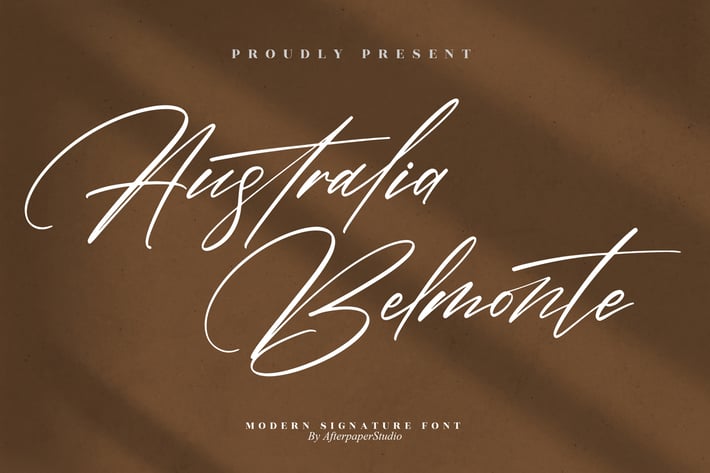
Australia Belmonte Modern Signature Font
Australia Belmonte is a modern signature font with flowing strokes and a refined handwritten elegance. Smooth, confident, and expressive, it captures that premium handwritten feel — like a personal signature crafted with style and intention.
Modern signature style with smooth, fluid strokes
Elegant and expressive handwritten character
Natural flow with balanced curves
Stylish ligatures for a more personal touch
Clean yet artistic appearance
Graceful, personal, and effortlessly classy — Australia Belmonte feels like a signature that tells a story.*